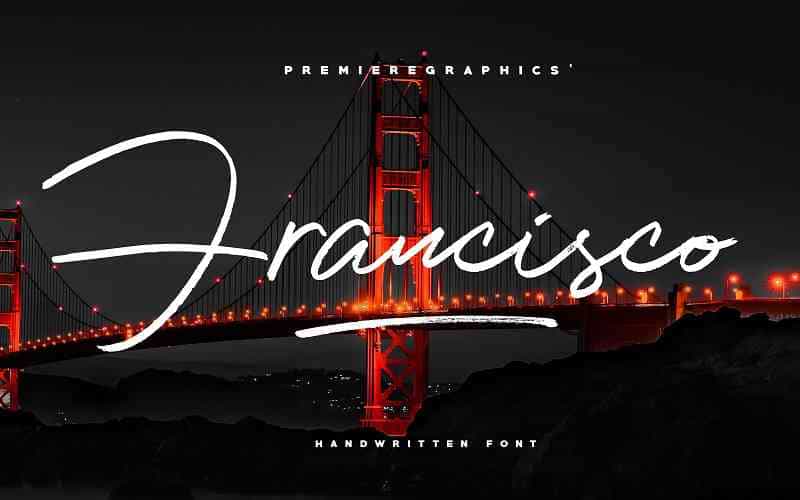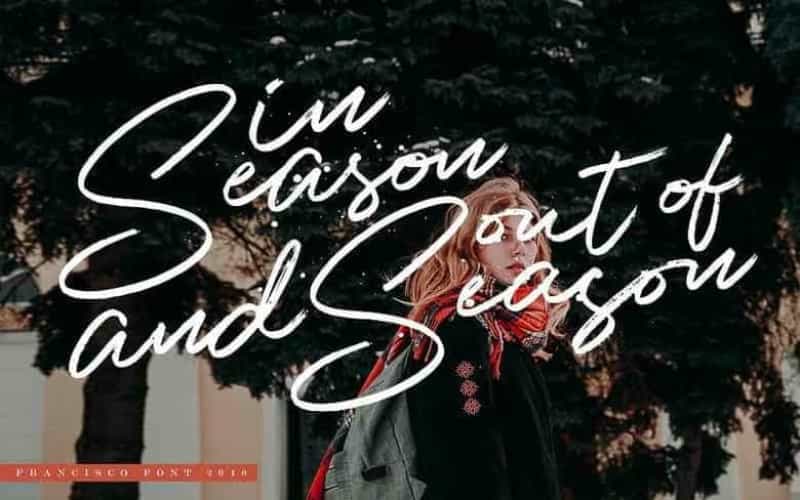
So, let me introduce you to, Francisco! If you are looking for a font like this, then you’ve found the Francisco font! That is why, having a realistic pen texture, you can get the design you want! Francisco is designed as the font you will like to use next. It is highly versatile with its ligatures and multilingual options, and would be perfect for your logo, branding, product packaging, videos, graphics, and other projects!